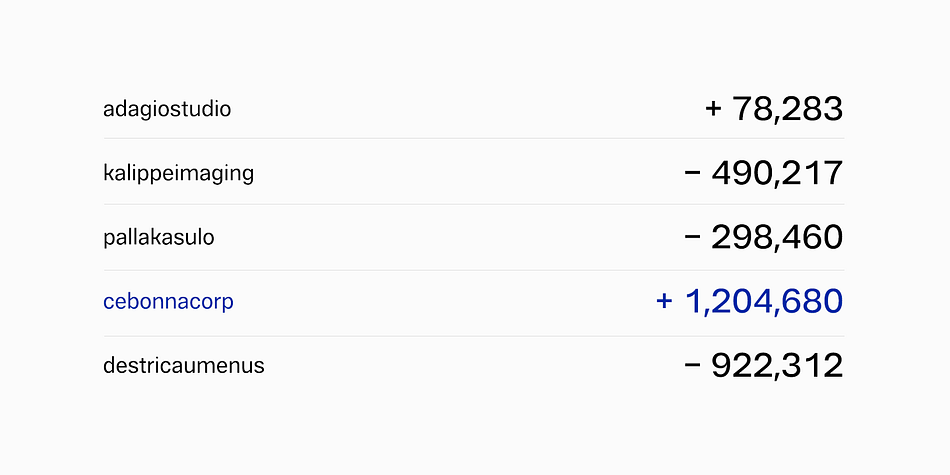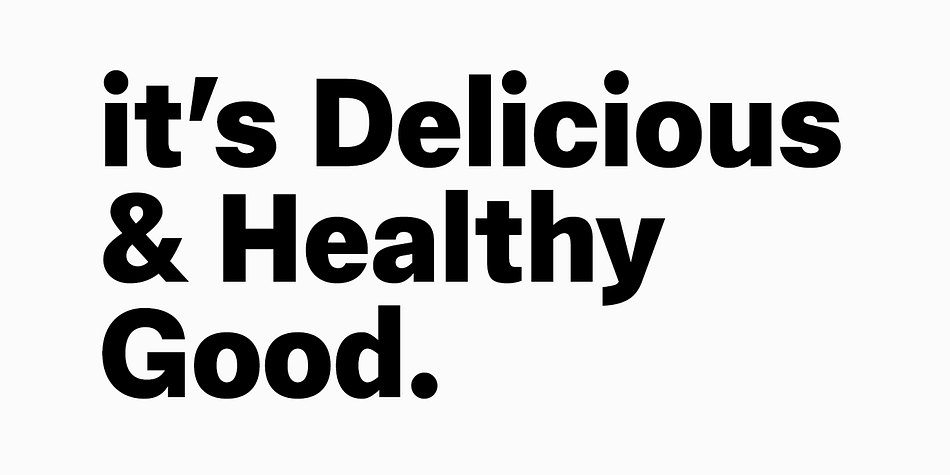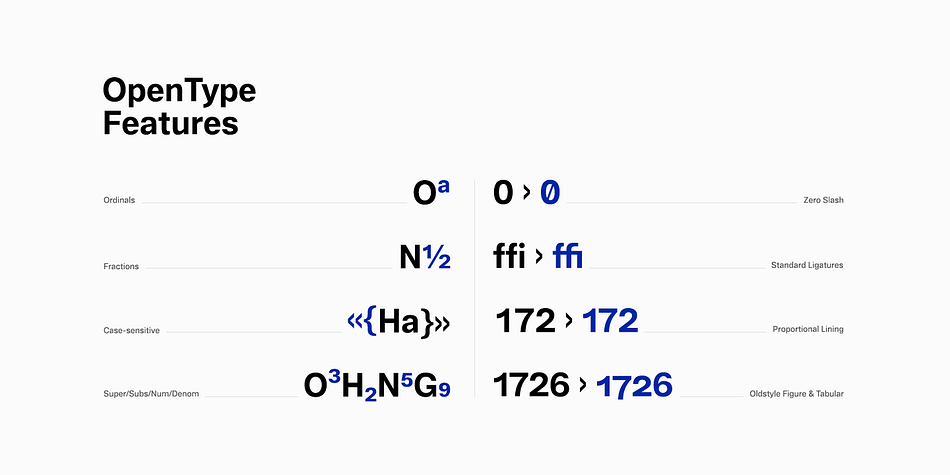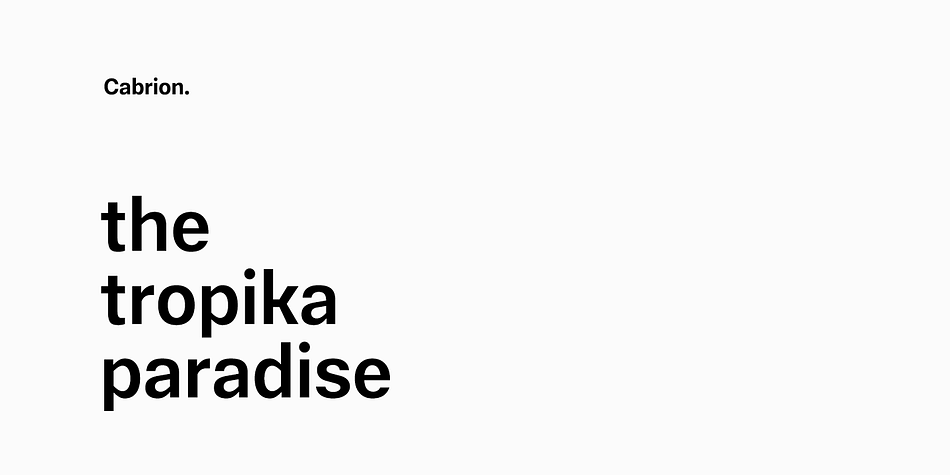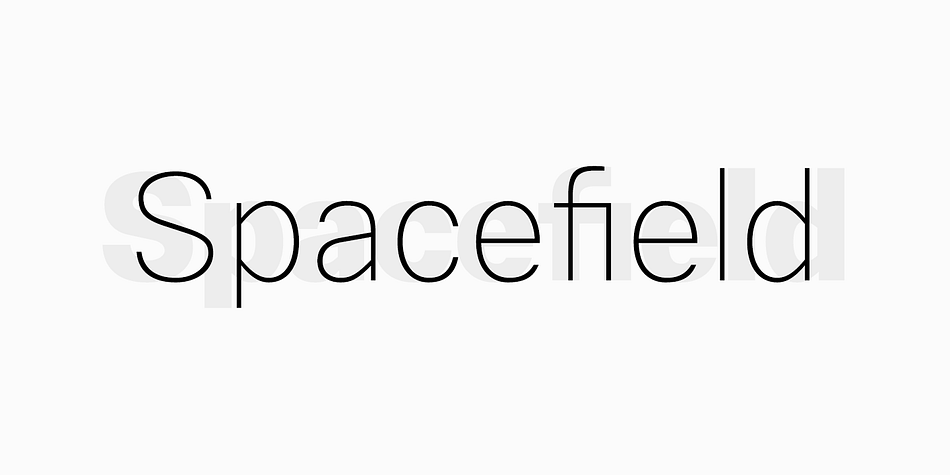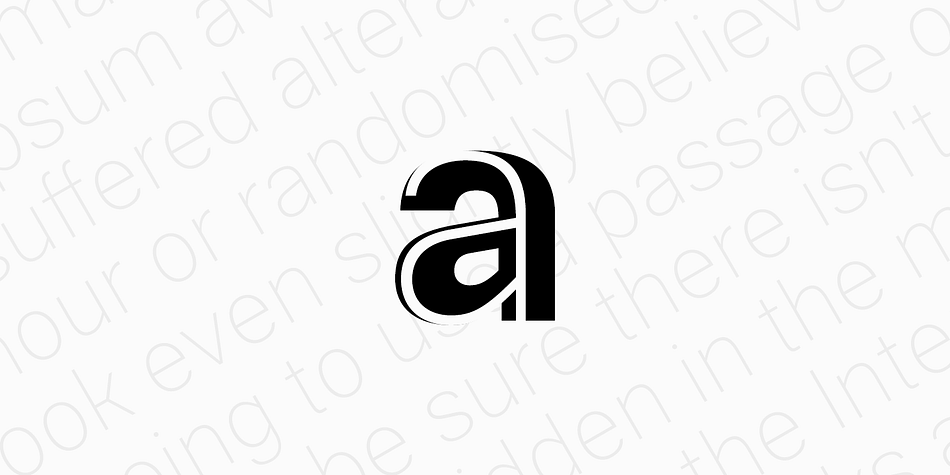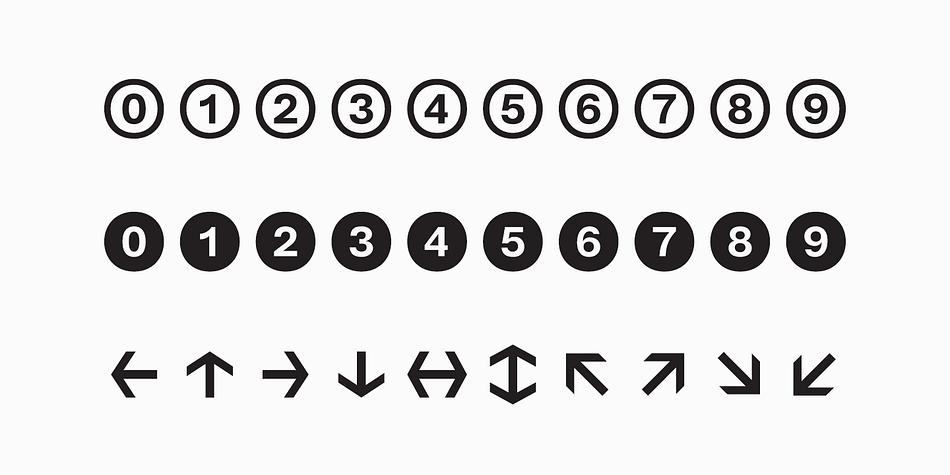
Designed by Anugrah Pasau, Cabrion is a sans serif font family. This typeface has fourteen styles and was published by Lafontype.
Cabrion is a sans serif typeface designed with OpenType features to support advanced typography needs such as ligature, fraction, superscript, subscript, old-style figure, tabular figure and many more.
The family contains 7 weights from thin to black with multilingual support and is ideally suited for branding, logo, advertising and packaging needs, editorial and publishing as well as web design and screen design.